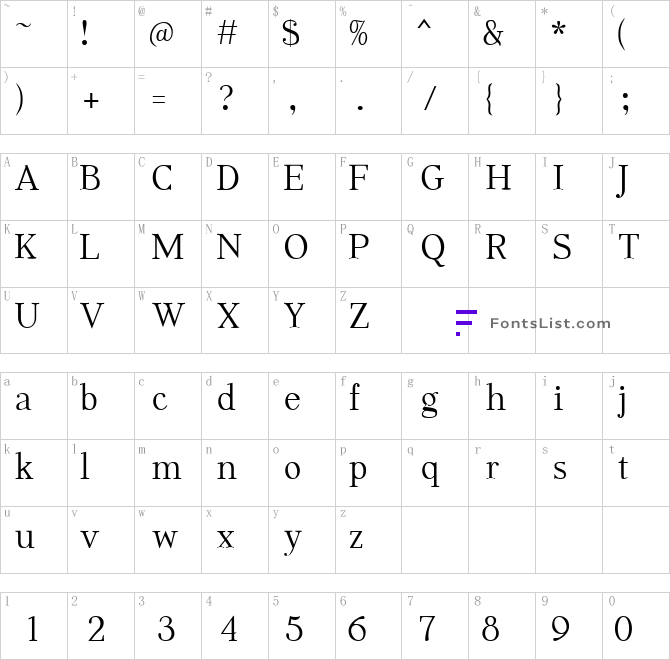
- Font Name:Aabced
Aabced-Regular.ttf is a very beautiful artistic font, Aabced-Regular.ttf is widely used in the design and printing of various books and pictures,Aabced-Regular.ttf has a strong visual impact,Aabced-Regular.ttf is a commonly used font in newspapers, magazines and books, and is used in posters, e-commerce Poster design, store design, logo design, font design and other fields.Aabced-Regular.